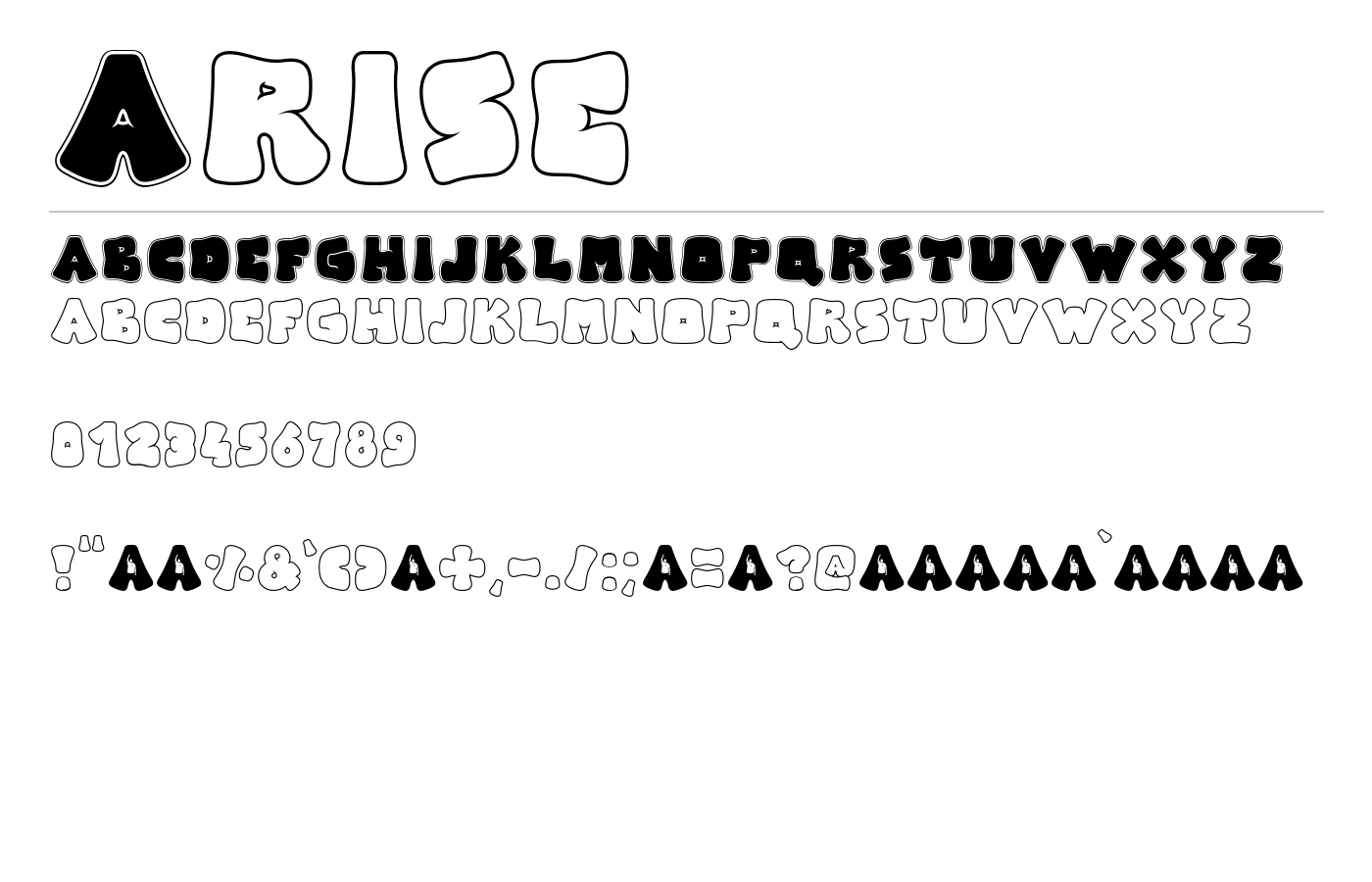
Arise Font is a playful and bold display typeface featuring chunky, rounded letterforms with a soft, bubbly feel. Its unique, irregular shapes and thick strokes give it a fun, approachable personality ideal for eye-catching headlines, casual branding, and creative projects that want to convey energy and friendliness. This font works best where a lively, informal style is desired, such as posters, logos, and children's materials.
Arise Font
About Arise Font
| Font family | Arise Font |
| Release date | 2012-04-18 |
| Designer | Matteo Marco Milazzo |